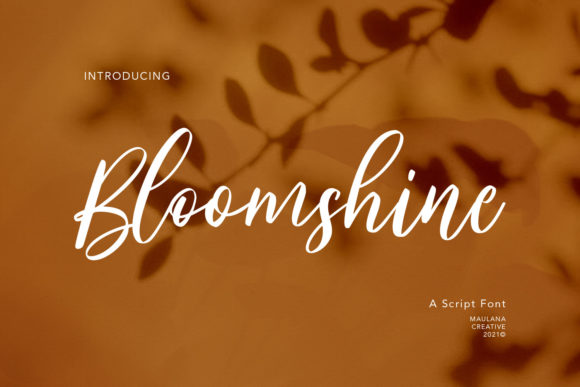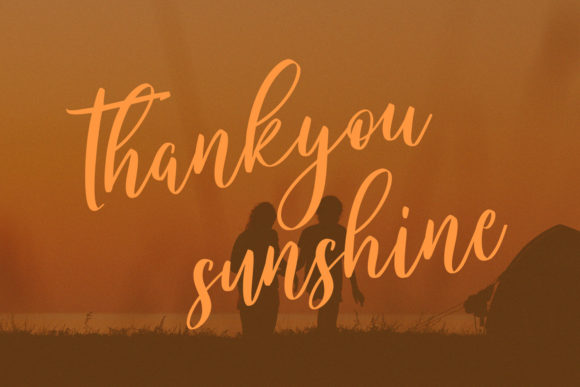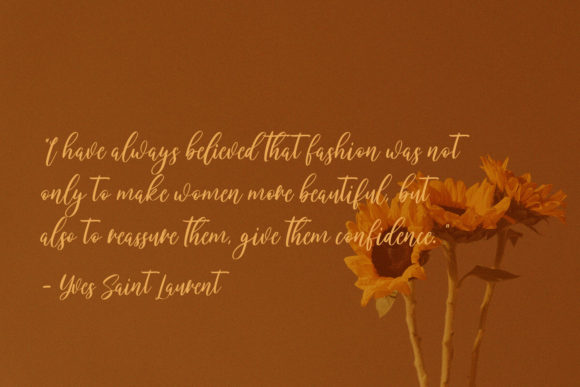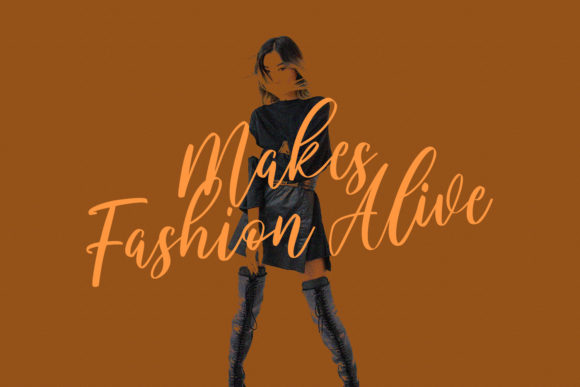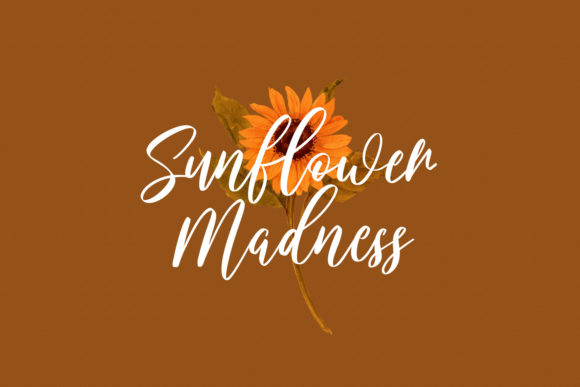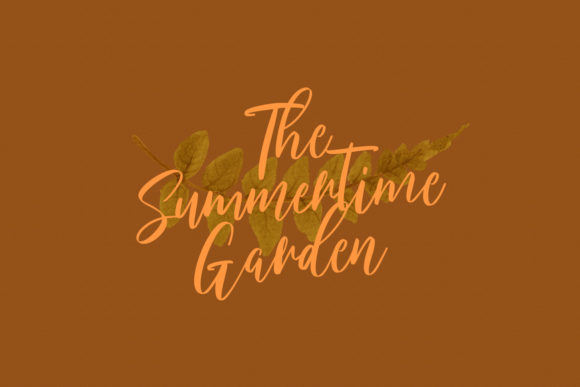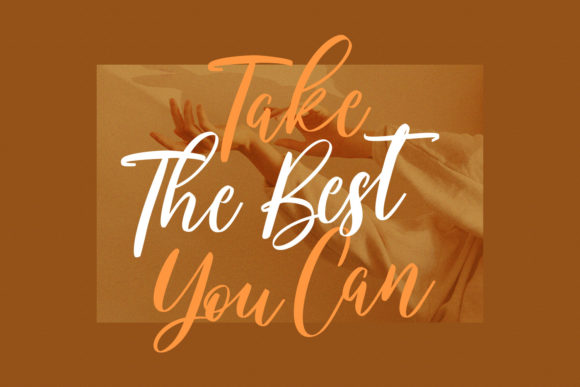
Bloomshine Font
About Bloomshine Font
Bloomshine is a stylish and casual handwritten font. With feminine strokes and a really fun character, this design is the perfect match for all your beautiful creations that need a friendly yet elegant touch!